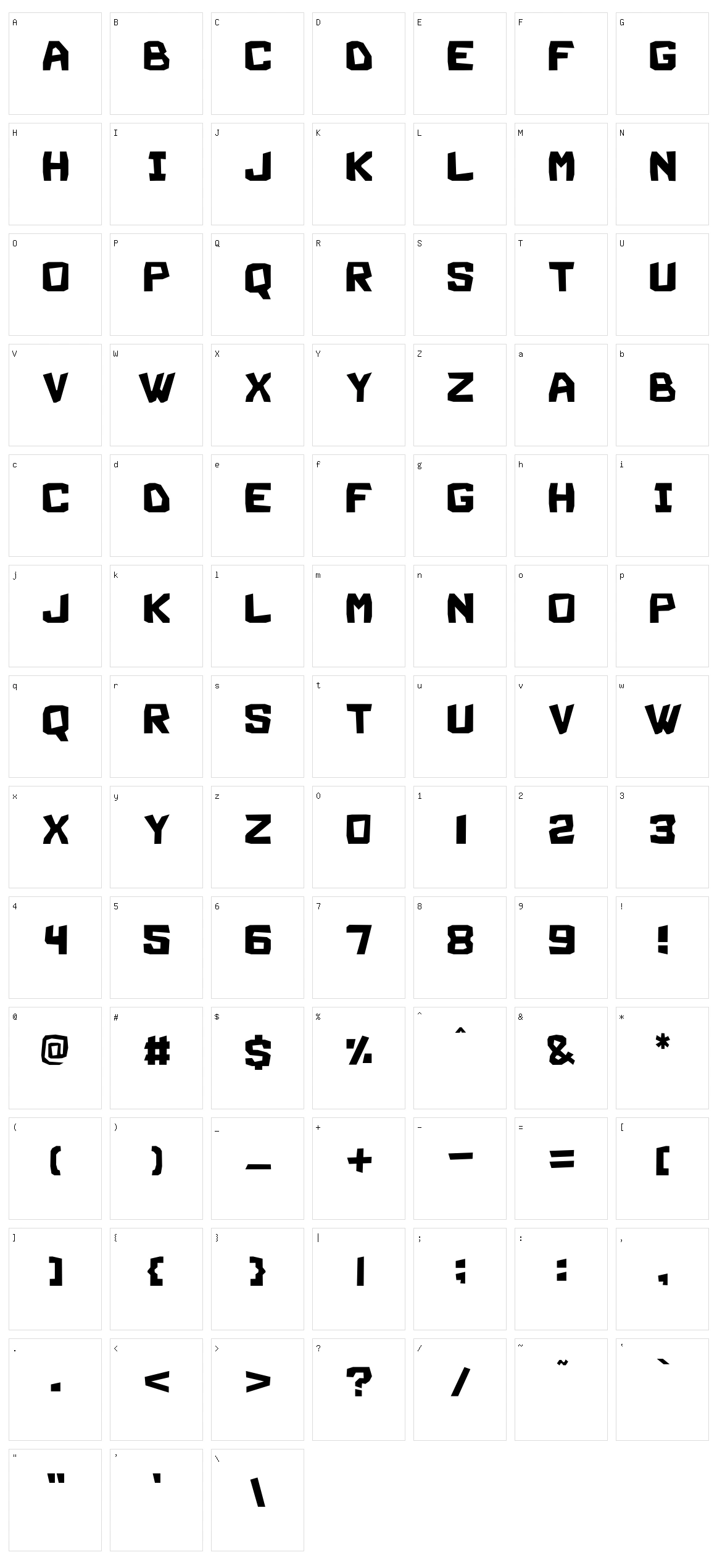
The free font Magario is carefully designed by FontsKing, showcasing a thoughtful balance of creativity and usability and falls under the Cartoon font style. When you download the ZIP file, it contains only 189.59 KB of font files, making it lightweight and quick to download. Please review the license details below to understand permitted usage and distribution rights. If license information is not available, we recommend using this font for personal projects only or contacting the author directly for commercial usage permissions.